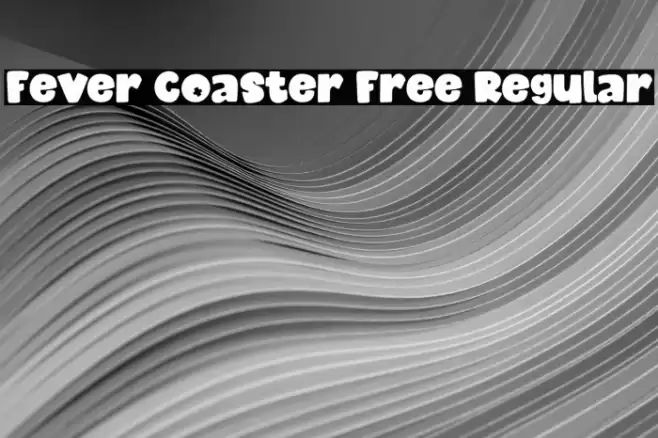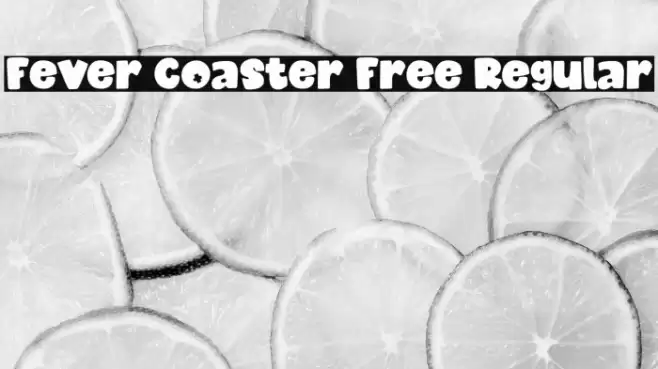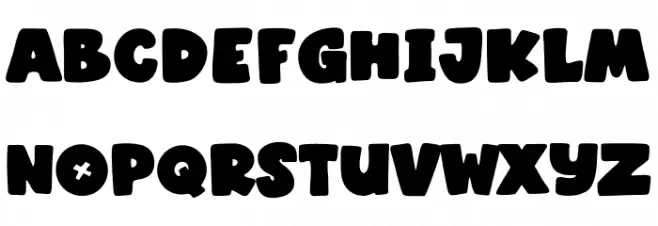
Fever Coaster Free Regular Font
Fever Coaster Free Regular Description
This playful and bold font features thick, rounded characters with a whimsical touch. The uppercase and lowercase letters are designed with a consistent weight, giving them a chunky appearance. Unique elements such as stars and dots within certain letters add a decorative flair, making it stand out. The font maintains a uniform stroke width, contributing to its bold and impactful look. Its playful nature makes it suitable for creative and fun projects, where a lively and energetic feel is desired. The characters are evenly spaced, ensuring readability while maintaining its distinctive style.
A bold, playful font with rounded, whimsical characters and decorative elements from Cartoon fonts.
- Font: Fever Coaster Free Regular
- Proposed Projects: Ideal for children's books, playful branding, party invitations, and creative posters.
- Overall Style: Playful, Whimsical
- Use Case: Logos, Headlines, Posters